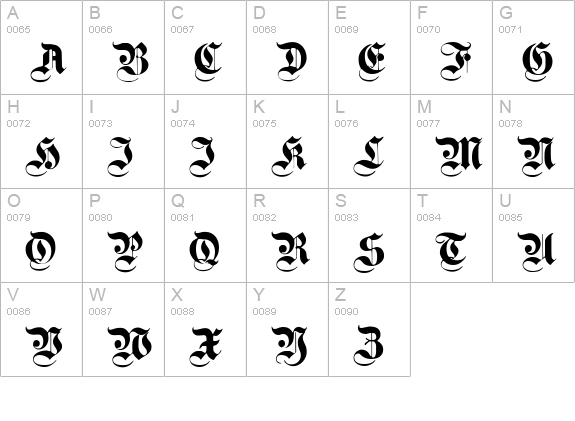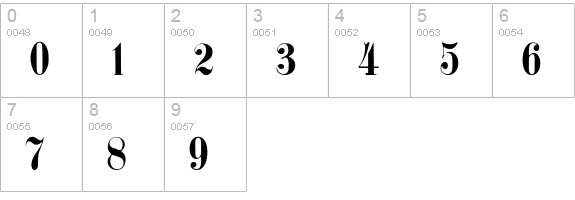
PlainGermanica Font Details
Introducing PlainGermanica font, a stunning choice for your design projects. This versatile typeface combines classic elegance with a modern twist, making it perfect for a wide range of applications. With its clean lines and balanced proportions, PlainGermanica exudes a sense of professionalism and sophistication. Whether you're designing a logo, creating a website, or crafting printed materials, this font will effortlessly elevate your work to the next level. One of the standout features of PlainGermanica is its wide range of weights and styles. From the bold and impactful to the sleek and refined, you'll find the perfect variation to suit your needs. This font is designed to be highly legible, ensuring that your message is clear and easy to read, no matter the size or medium. But what truly sets PlainGermanica apart is that it's free. Yes, you read that right – this exceptional font is freely available to download at FontsMarket.com. You no longer have to compromise on quality or break the bank to access a premium typeface. With PlainGermanica, you can have the best of both worlds – exquisite design and affordability. Downloading PlainGermanica from FontsMarket.com is quick and easy. Simply visit the website, locate the font, and click the download button. Within moments, you'll have this incredible typeface at your fingertips, ready to enhance your creative projects. So why wait? Experience the beauty and versatility of PlainGermanica font today. Download it for free at FontsMarket.com and unlock a world of design possibilities. Elevate your work, captivate your audience, and make a lasting impression with this exceptional typeface.